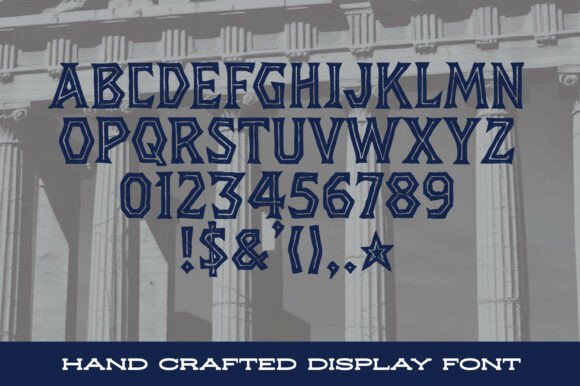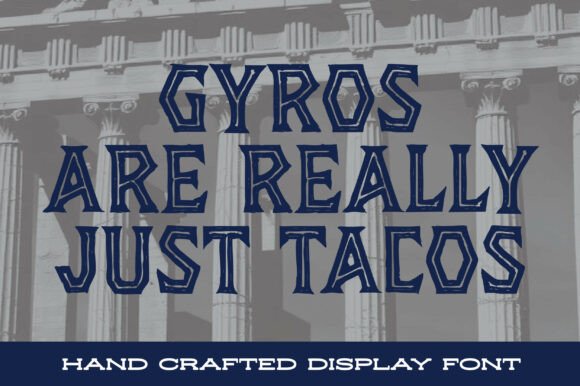
Introduction to Mythora Font Font
Fonts play a crucial role in design, and the Mythora Font font is a typeface that brings both character and versatility to any project. Whether you’re working on a branding project, a website, or a print design, the Mythora Font font offers a unique style that can elevate your work.
Mythora is a Greek-inspired typeface that blends the mystique of ancient mythology with bold, hand-crafted detail.
Its forms are timeless yet slightly weathered, echoing stone carvings and temple inscriptions Perfect for titles, logos, or designs that need a touch of legendary grandeur.
Key Features of Mythora Font Font
Why Choose Mythora Font Font?
The Mythora Font font is more than just a typeface – it’s a design tool that helps you communicate your message with style and clarity. Its unique character set and versatile design make it suitable for a wide range of applications, from elegant invitations to bold headlines.
With its carefully crafted letterforms and balanced proportions, the Mythora Font font ensures readability and visual appeal across all mediums.
What makes Mythora Font font special?
The Mythora Font font stands out with its unique design, exceptional readability, and versatility across various design applications.